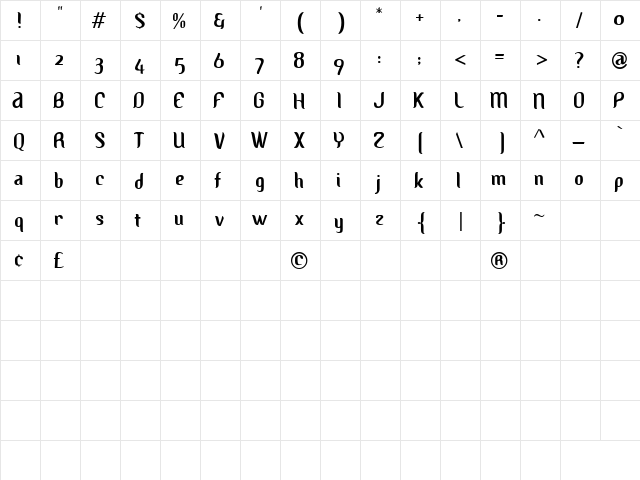
Albino Regular
Design Context for Albino Typeface
Albino is a composed and adaptable typeface that performs quietly and consistently across a wide range of design contexts.